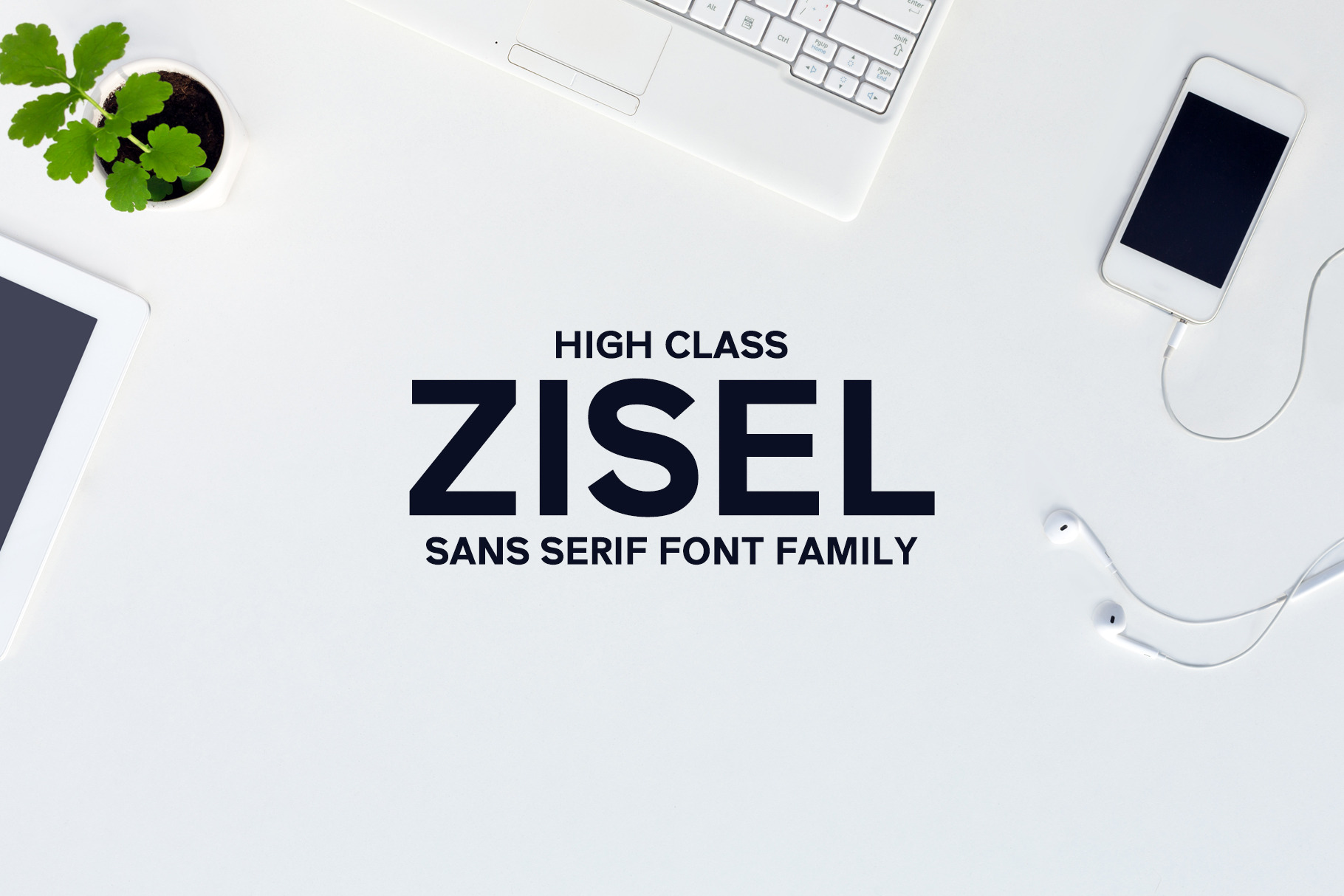
Zisel Sans Fonts Family Set
Zisel Sans Serif Font is a clean bold typeface with a very versatile font that works great in large and small sizes. It comes with uppercase, lowercase, numeral, punctuation, symbol & support multilingual. Zisel is perfect for branding projects, home-ware designs, product packaging, magazine headers, etc.
Zisel Font Features:
- Uppercase Multilingual Letters
- Lowercase Multilingual Letters
- Non English Characters ( Latin Extended A )